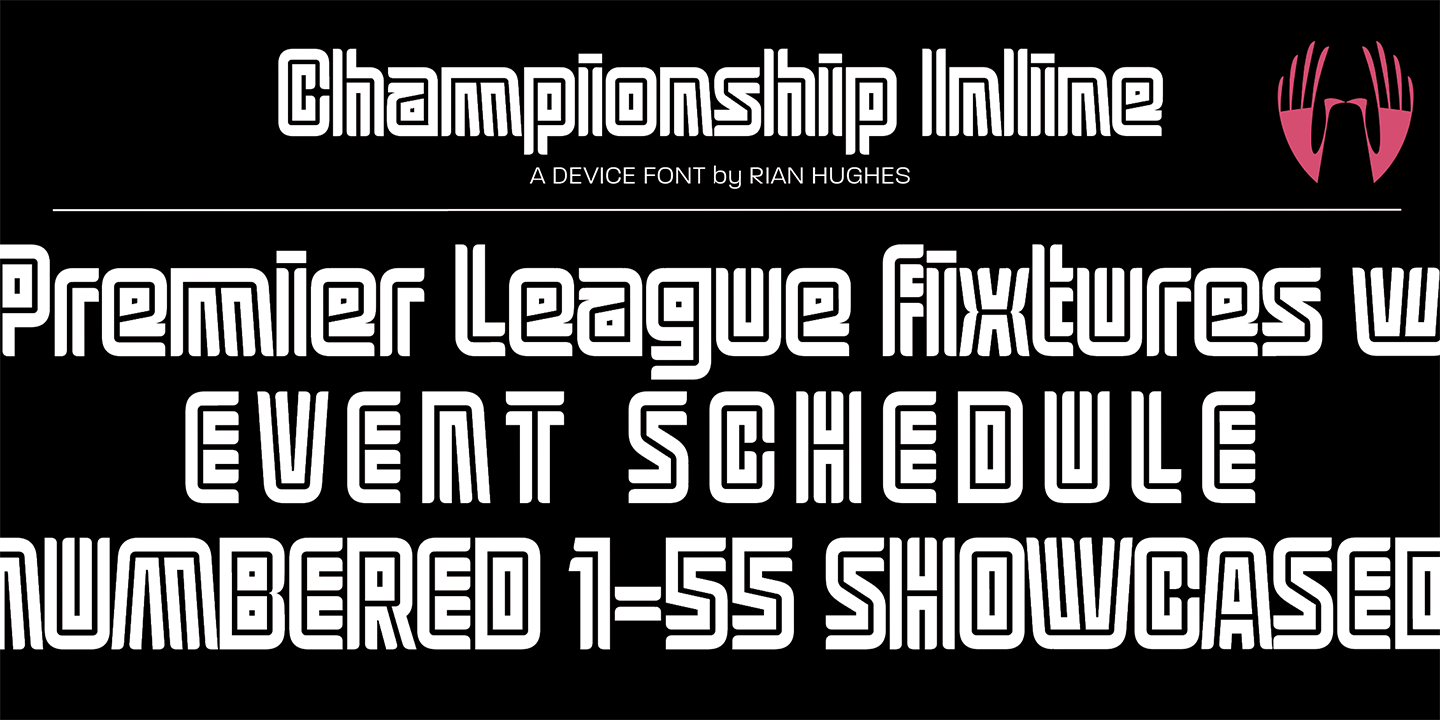
Championship Inline Font is a bold and sporty display typeface designed for sports branding, event posters, team logos, merchandise, and athletic apparel design. Its inline detailing adds depth and style, making your typography pop with energy.
What makes Championship Inline Font Free Download so exciting is its dynamic and vintage-inspired design that combines classic sports aesthetics with modern sharpness. It’s perfect for creating impactful and memorable visuals that convey strength and competition.
The Championship Inline Font family includes styles such as Regular and Inline Bold, giving designers flexibility to create layered and eye-catching typography.
Whether you’re designing for sports teams, athletic events, or energetic branding campaigns, Championship Inline Font Free Download brings a powerful and authentic typographic voice that commands attention.